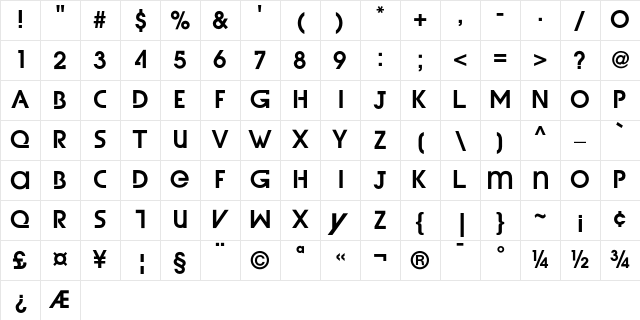
Wet Dreamz Demi Free Font
Wet Dreamz Demi
Style: Demi
Foundry: Wesley Pastrana Rosado(Weslo GFx)
Designer: Wesley Pastrana
Design Context for Wet Dreamz
Wet Dreamz is a composed and adaptable typeface that performs quietly and consistently across a wide range of design contexts.